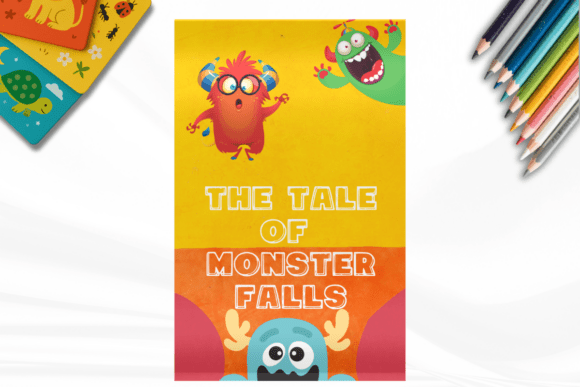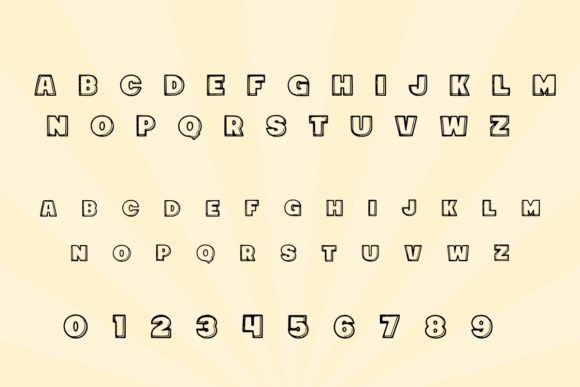
Introducing Echo Pop Font: The Ultimate Retro Display Font for Modern Designs
Are you looking for a font that adds a nostalgic yet modern twist to your designs? Look no further than Echo Pop Font, a vibrant retro display font inspired by 1980s pop art and vintage comic books. This bold and energetic font is perfect for designers and crafters who want to add a fun and playful touch to their work.
What is Echo Pop Font?
Echo Pop Font is a carefully crafted font that embodies the spirit of 1980s pop art and vintage comic books. It features bold outlines, layered effects, and a punchy, energetic feel that instantly grabs attention. The font’s unique design makes it perfect for a wide range of applications, from loud product packaging to funky stickers, retro-style t-shirt designs, YouTube thumbnails, and fun editorial spreads.
Key Features of Echo Pop Font
- Bold Outlines: Echo Pop Font features bold outlines that give it a distinctive and eye-catching look.
- Layered Effects: The font’s layered effects add depth and dimension to your designs, making them stand out from the crowd.
- Punchy and Energetic: Echo Pop Font has a punchy and energetic feel that is sure to grab attention and leave a lasting impression.
- Retro yet Modern: The font’s retro-inspired design is perfectly balanced with a modern twist, making it suitable for a wide range of applications.
Uses of Echo Pop Font
Echo Pop Font is a versatile font that can be used for a variety of design projects, including:
- Loud Product Packaging: Add a bold and eye-catching touch to your product packaging with Echo Pop Font.
- Funky Stickers: Create fun and playful stickers with Echo Pop Font that are sure to grab attention.
- Retro-Style T-Shirt Designs: Give your t-shirt designs a retro twist with Echo Pop Font.
- YouTube Thumbnails: Create eye-catching YouTube thumbnails with Echo Pop Font that will make your videos stand out.
- Fun Editorial Spreads: Add a playful touch to your editorial spreads with Echo Pop Font.
Why Choose Echo Pop Font?
There are many reasons why Echo Pop Font is the perfect choice for designers and crafters, including:
- Unique Design: Echo Pop Font has a unique design that is sure to make your designs stand out from the crowd.
- High-Quality: Echo Pop Font is a high-quality font that is designed to produce crisp and clear results.
Tips for Using Echo Pop Font
Here are a few tips for using Echo Pop Font in your designs:
- Experiment with Colors: Echo Pop Font looks great in bold and bright colors, so don’t be afraid to experiment with different color combinations.
- Use it Boldly: Echo Pop Font is a bold font, so use it boldly in your designs to make a statement.
- Mix and Match: Mix and match Echo Pop Font with other fonts to create a unique and interesting look.
Echo Pop Font is a vibrant retro display font that is perfect for designers and crafters who want to add a fun and playful touch to their work. With its bold outlines, layered effects, and punchy, energetic feel, this font is sure to grab attention and leave a lasting impression. Whether you’re designing for digital or print, Echo Pop Font is a great choice for a wide range of applications.